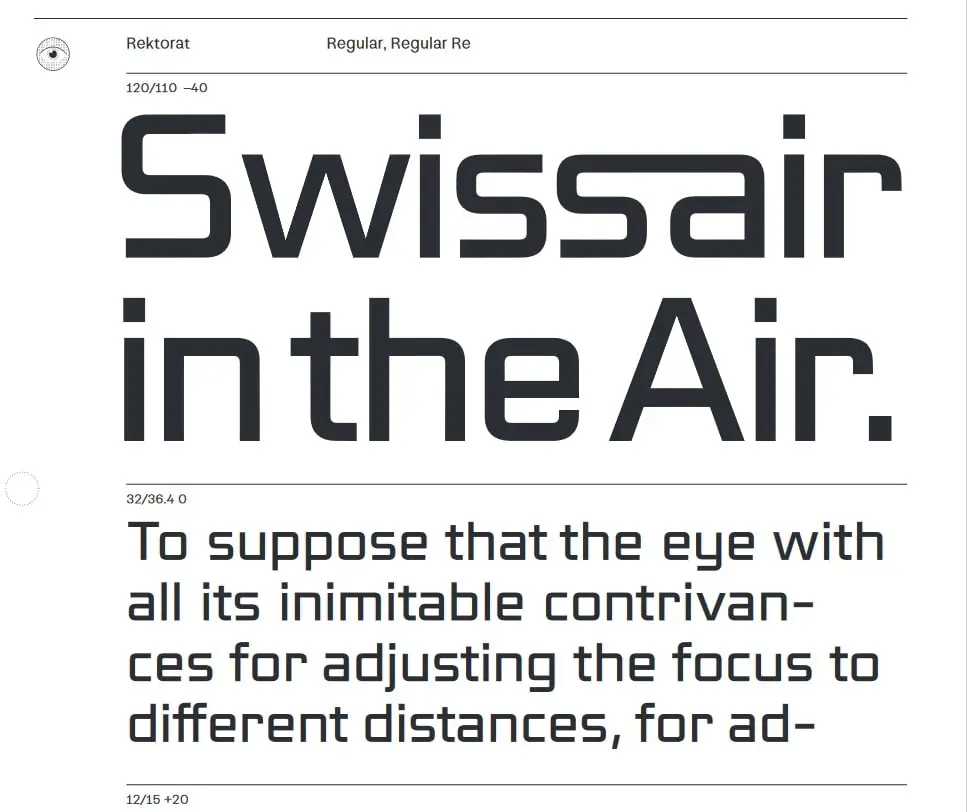
The Nouvelle Noire Rektorat Font Family is a sophisticated typeface designed for a variety of applications. With its elegant curves and modern aesthetic, this font family is perfect for branding, logos, web design, and print materials.
- Multiple weights for versatile design options
- Stylish serif and sans-serif variations
- High readability for both digital and print formats
- Weights: Light, Regular, Bold
Utilize the Nouvelle Noire Rektorat Font Family for creating striking headlines, elegant invitations, or professional presentations. Its versatility makes it suitable for both personal and commercial projects.